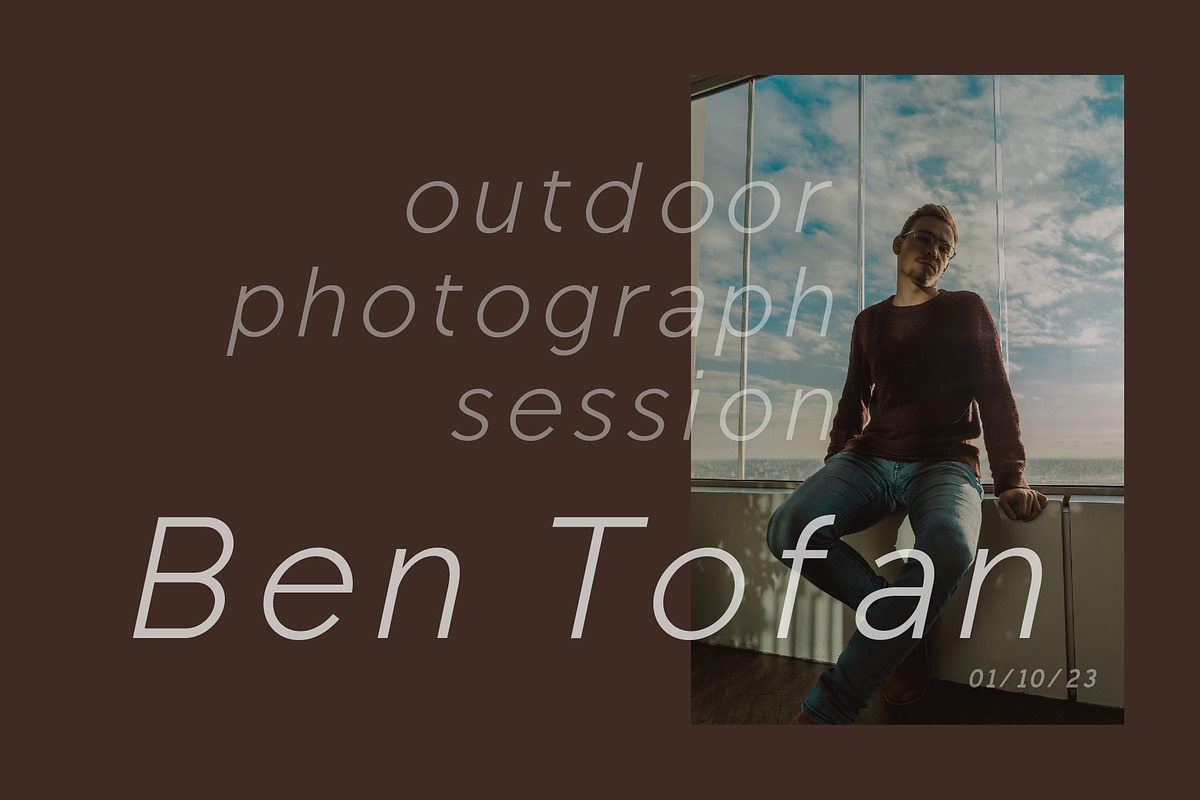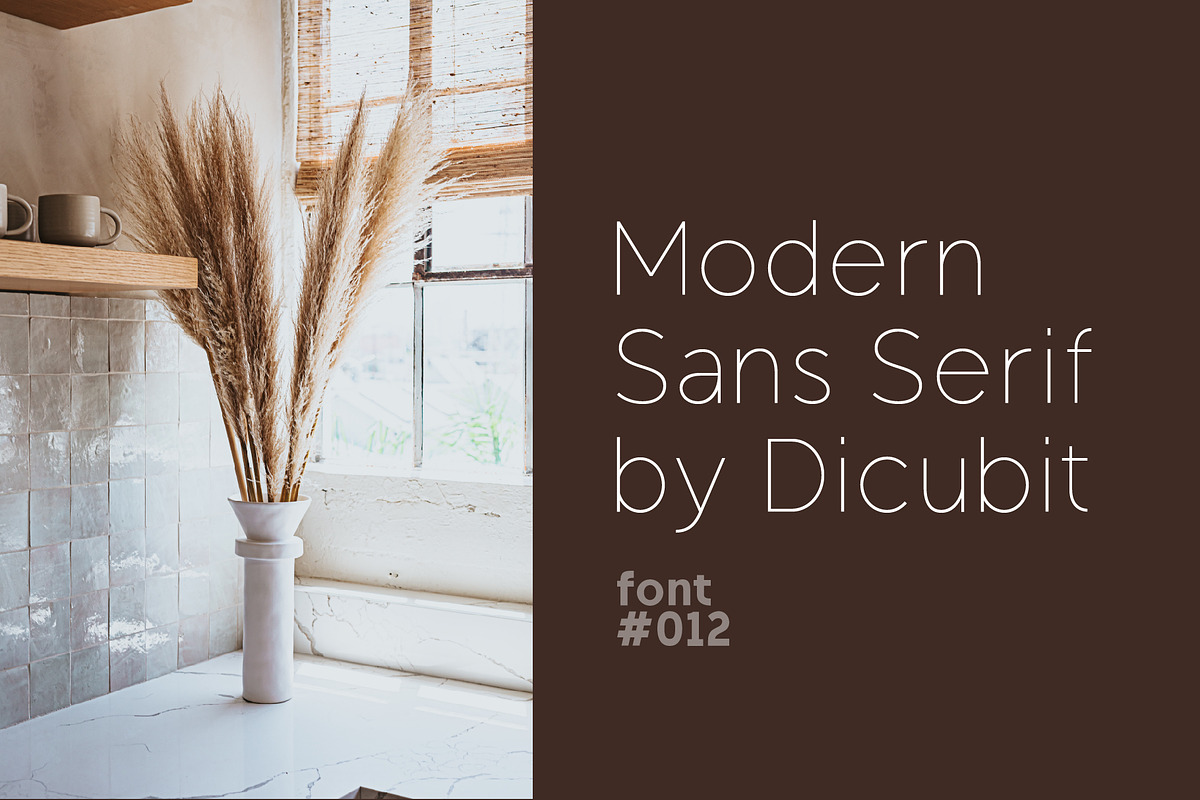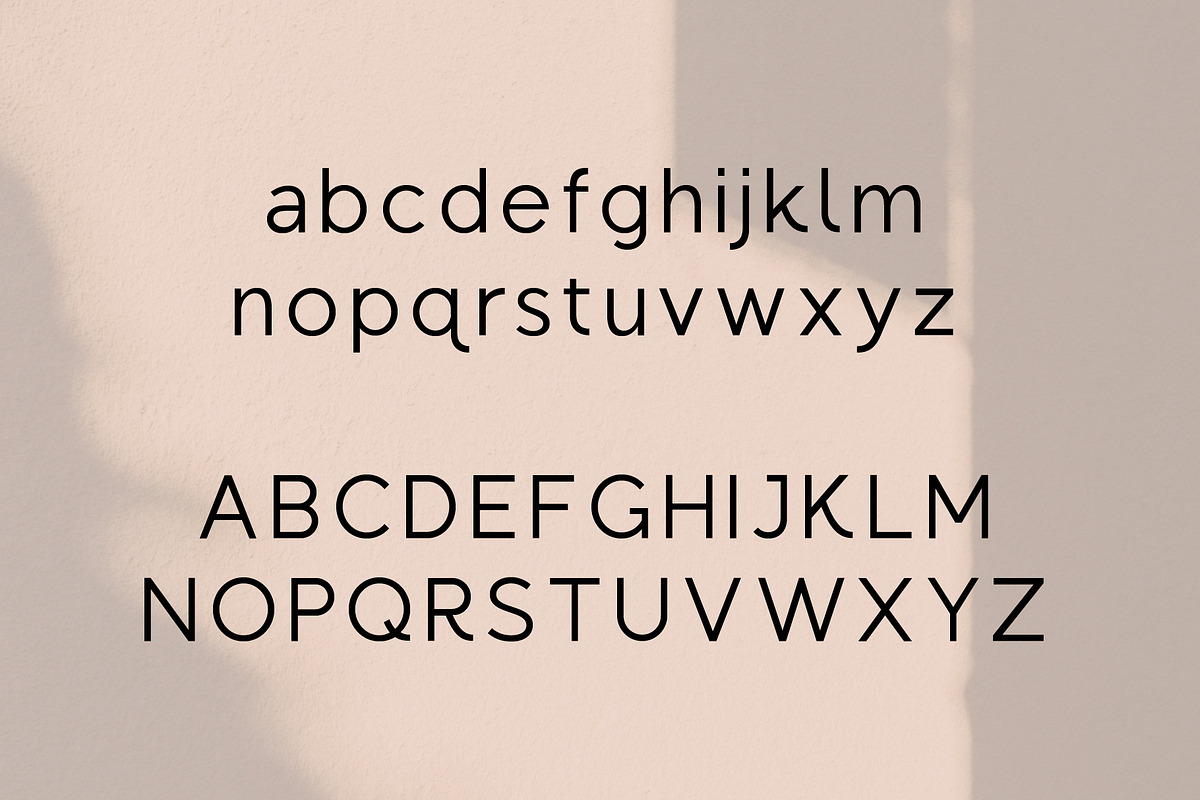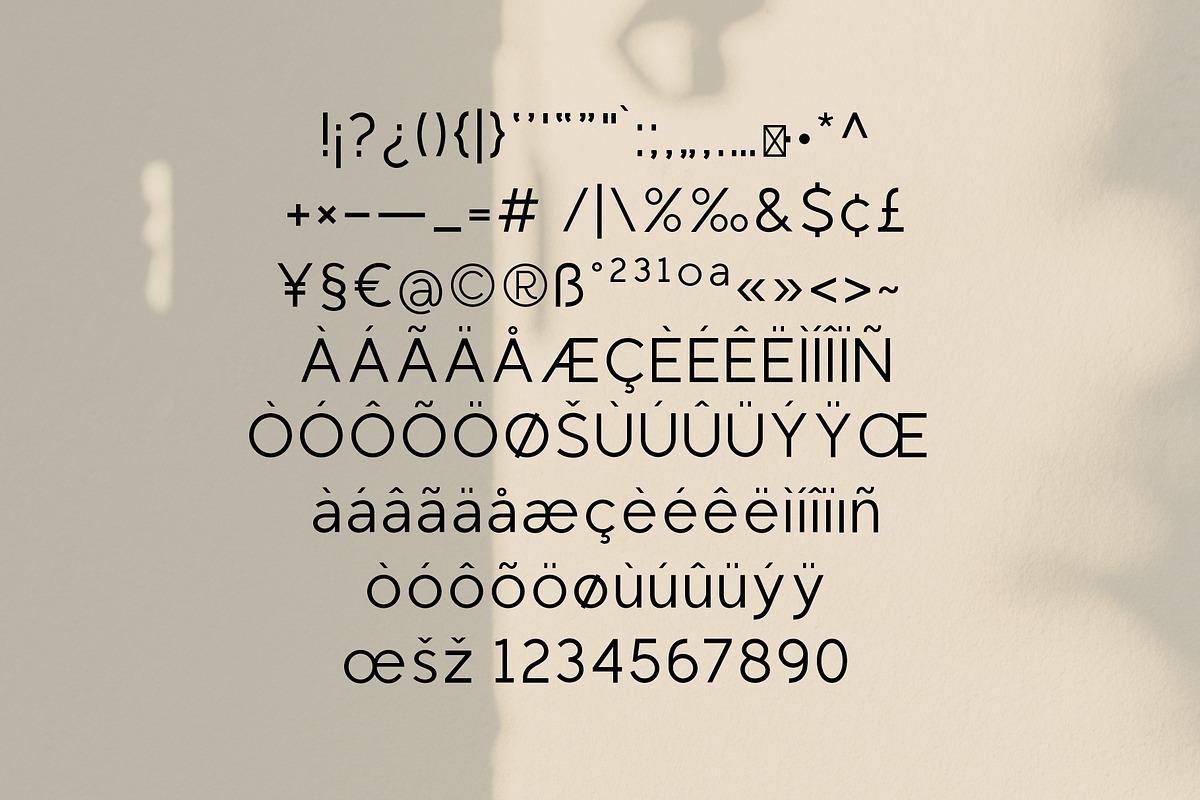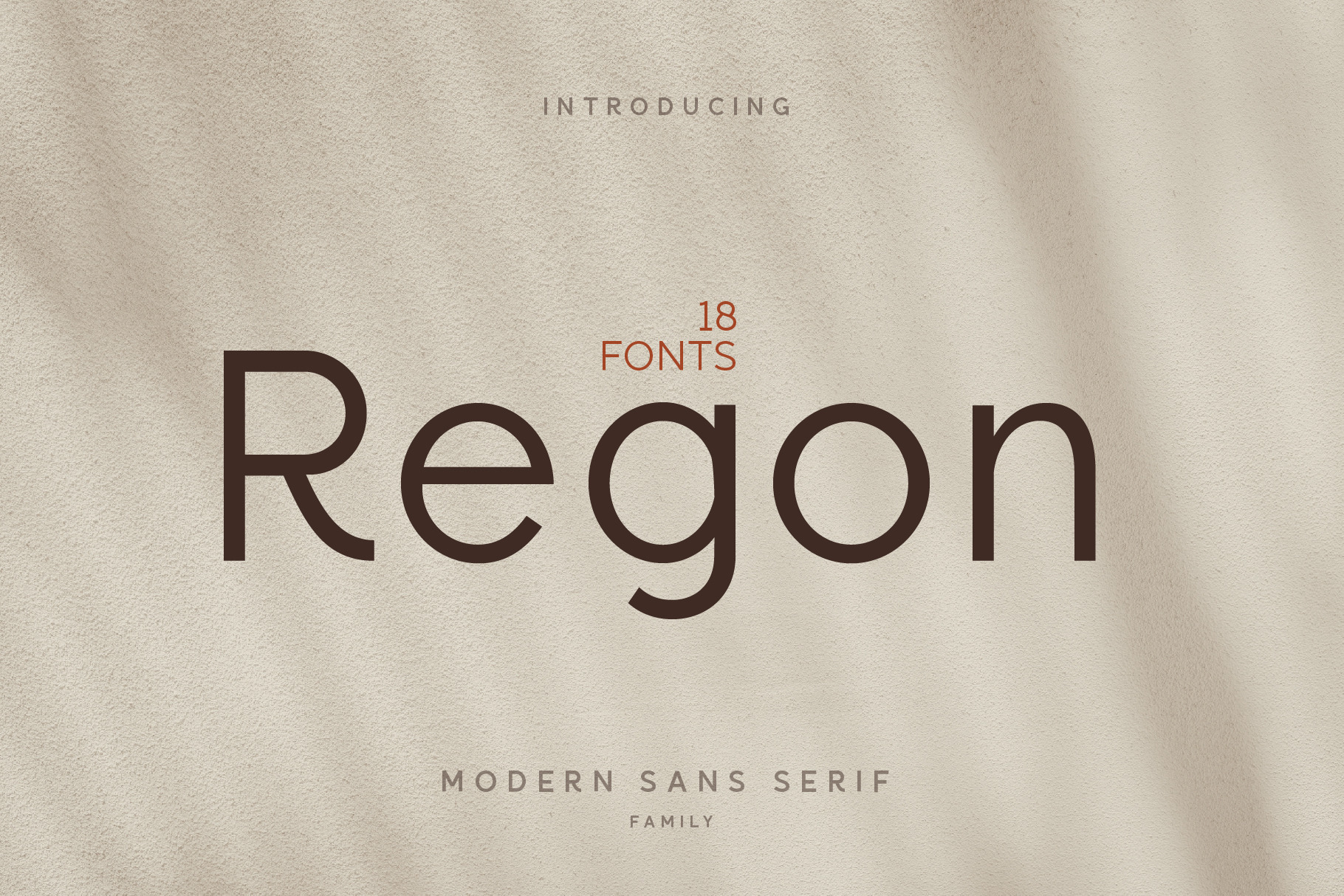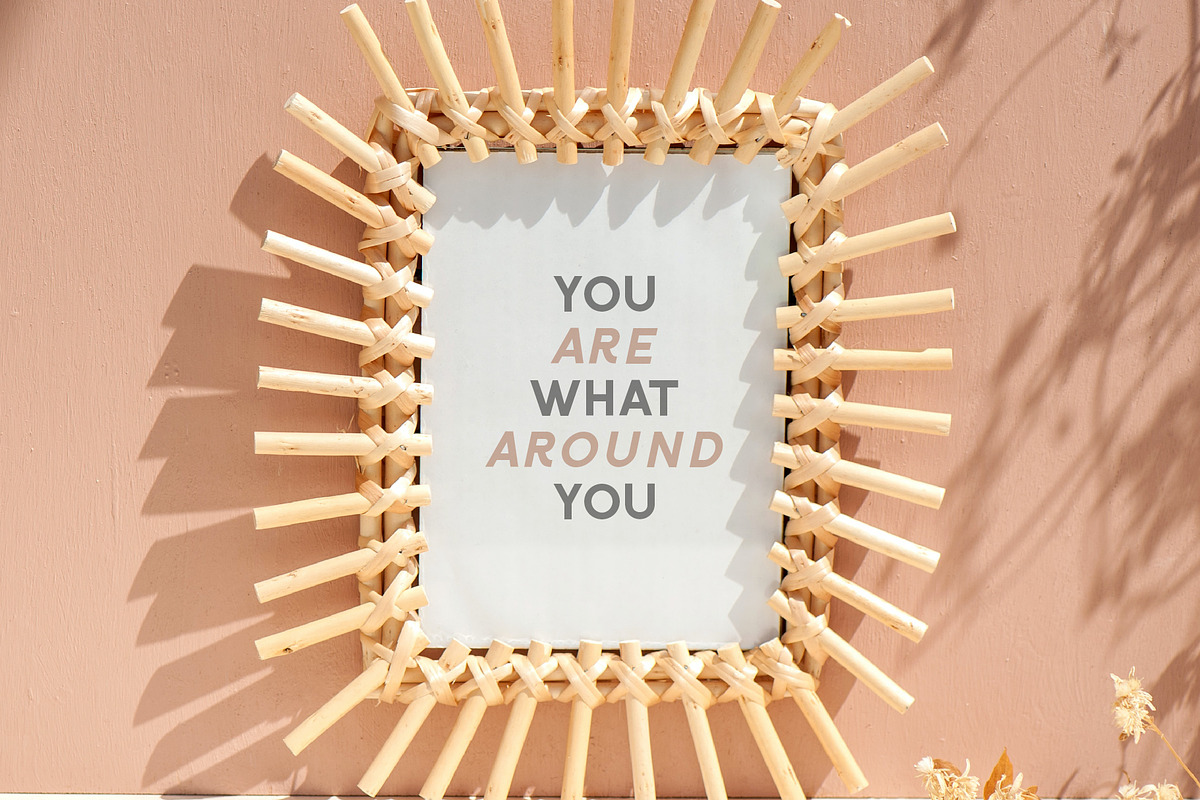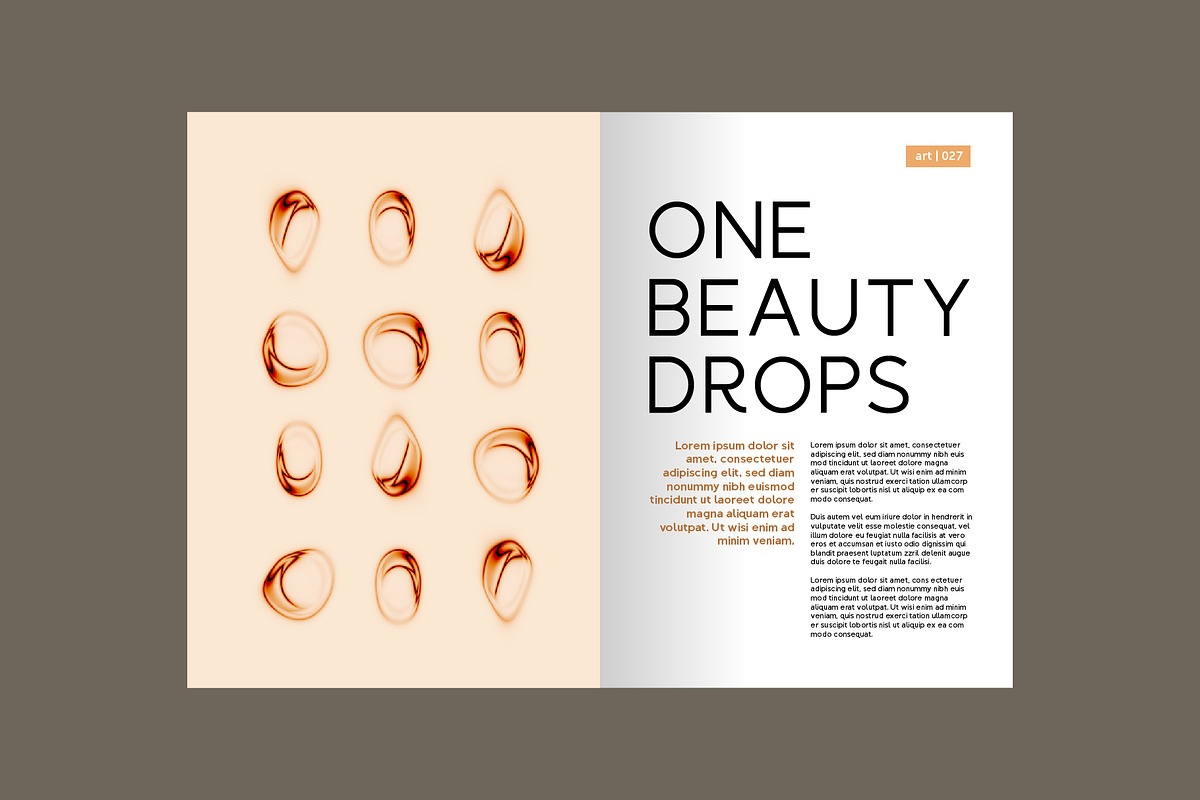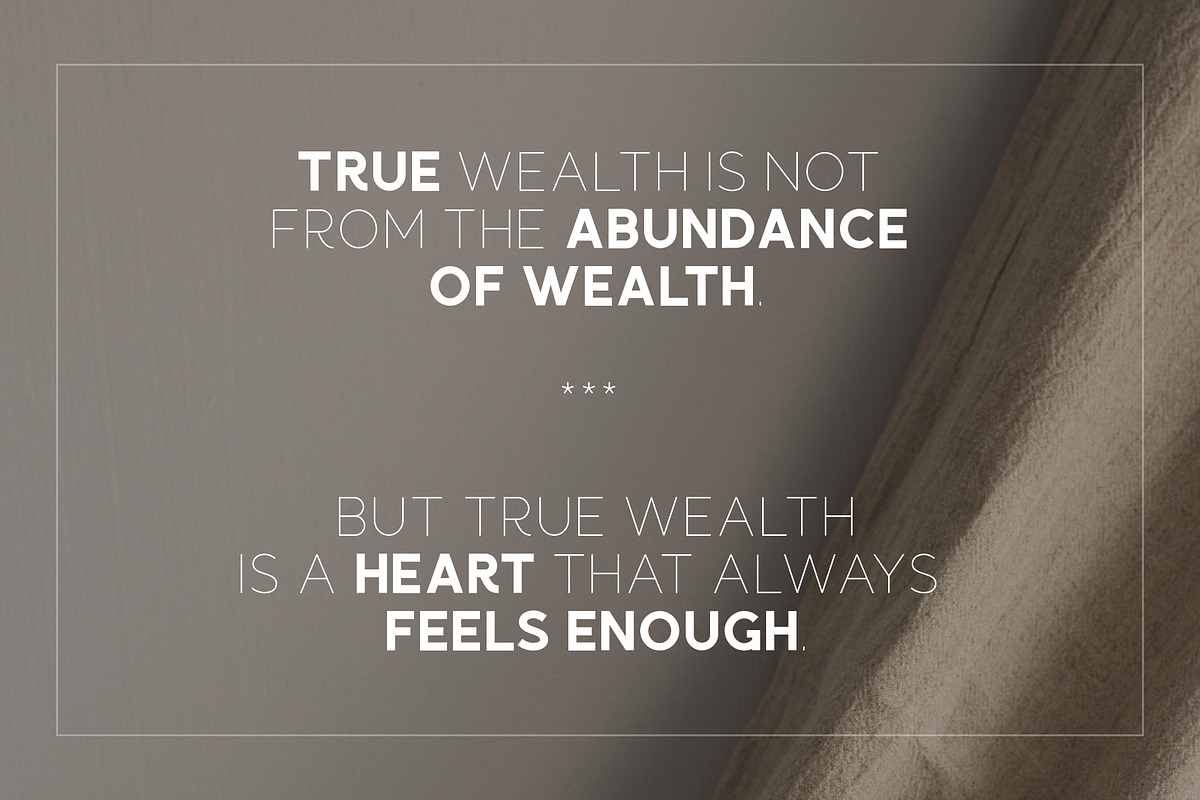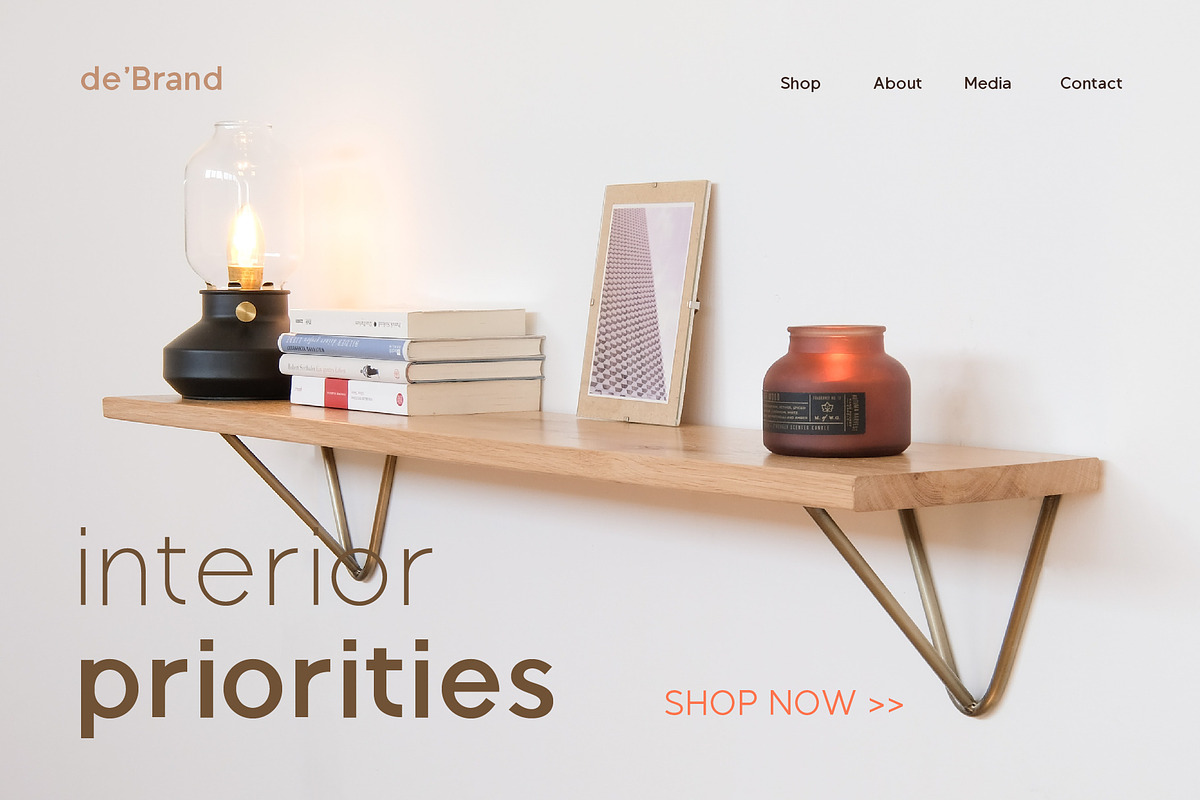
Regon Modern Sans Serif Font
Regon is a modern sans serif typeface/font family (18 fonts) designed with carefully handcrafted. This perfectly made to be applied in logo or branding, stationery, books, packaging, fashion, magazines, t-shirt, novels, labels and many advertising purposes.
Styles: Thin, Extra Light, Light, Regular, Medium, Semi Bold, Bold, Extra Bold, Black (All with Italic).
Features: Uppercase, Lowercase, Number, Punctuation, Symbol, Multilingual.